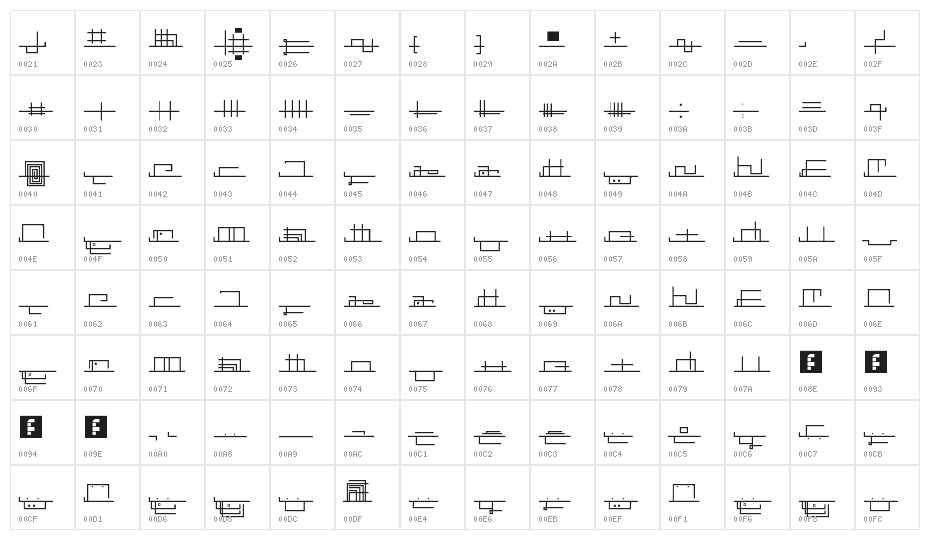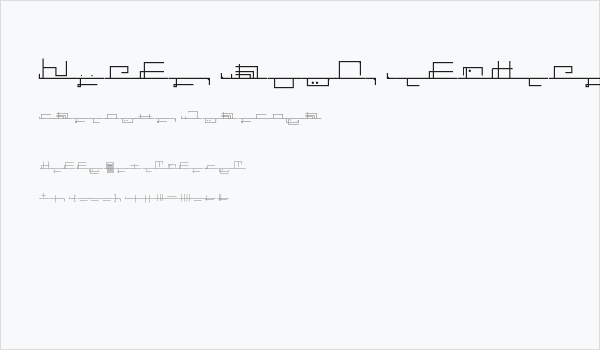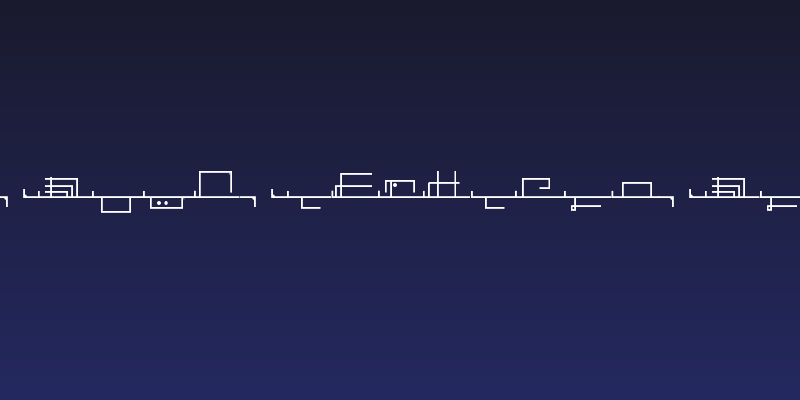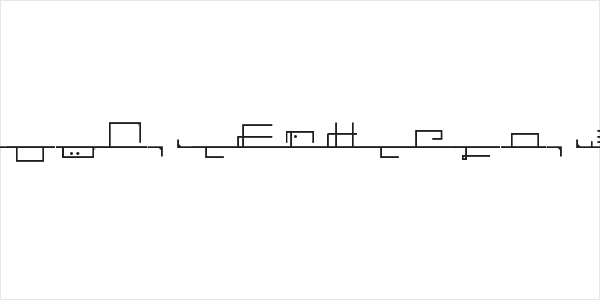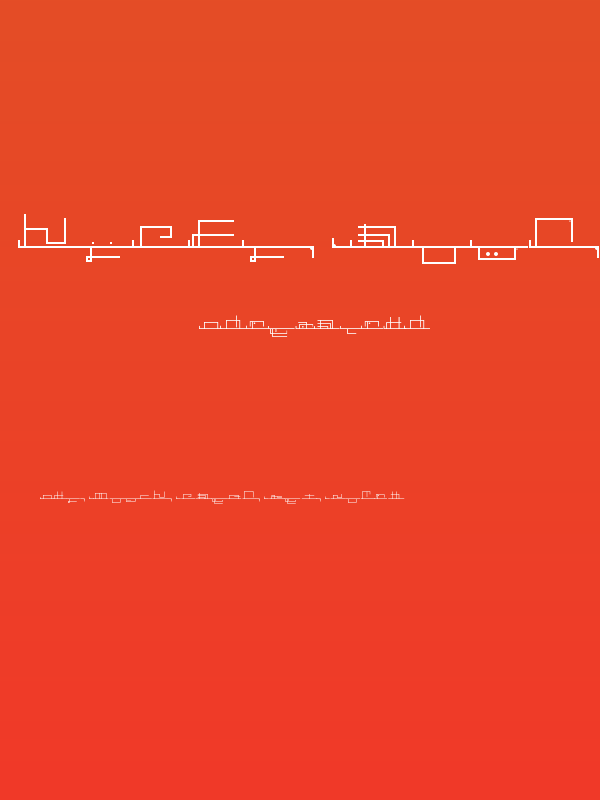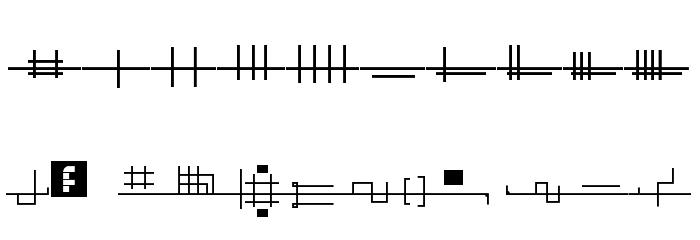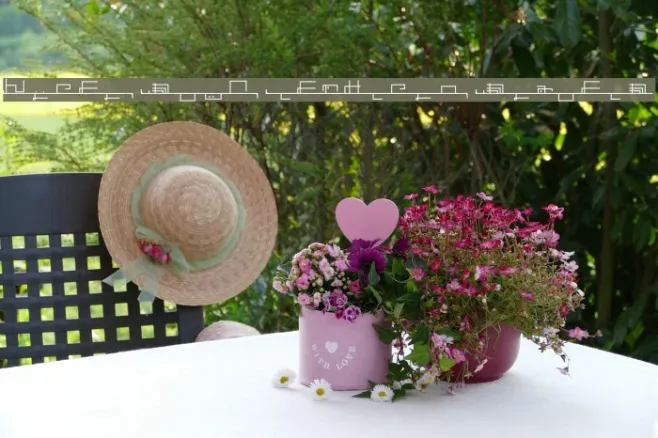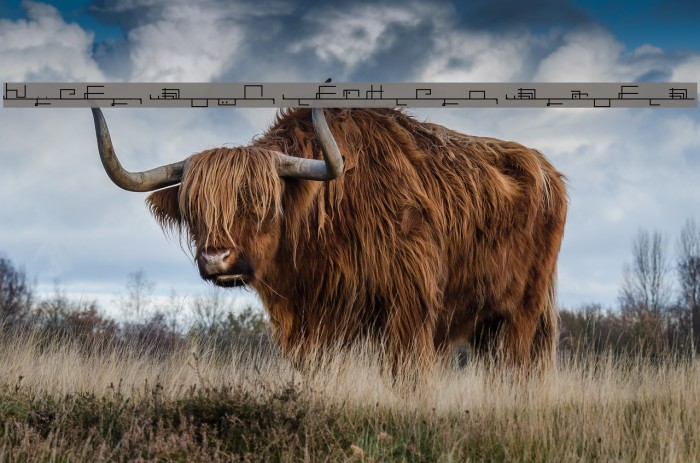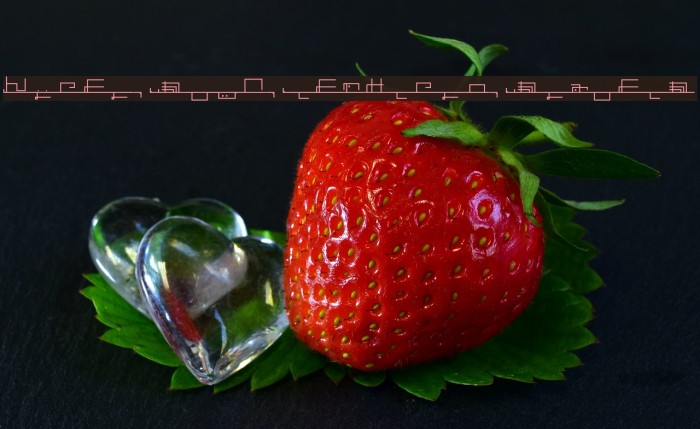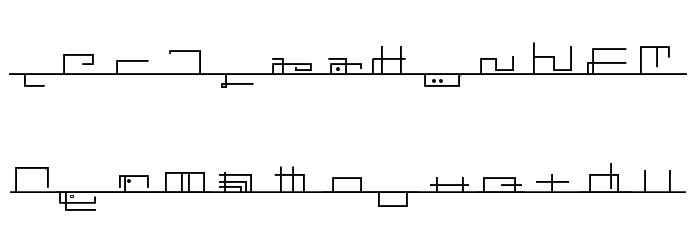
Këble Ruin alphabet Regular Font
Këble Ruin alphabet Regular Description
This font features a highly abstract and geometric design, characterized by its linear and angular elements. Each character is constructed from a series of lines and shapes that resemble architectural blueprints or circuit diagrams. The overall appearance is minimalistic yet complex, with a focus on horizontal and vertical lines intersecting at right angles. The font lacks traditional curves, giving it a futuristic and technical feel. It is not easily readable at first glance, making it more suitable for artistic or decorative purposes rather than practical text applications.
| Overall Style | Futuristic |
| Use Case | Logos, Art installations, Experimental design |
| Proposed Projects | Ideal for use in digital art, experimental design projects, or as a decorative element in modern and futuristic themes. |